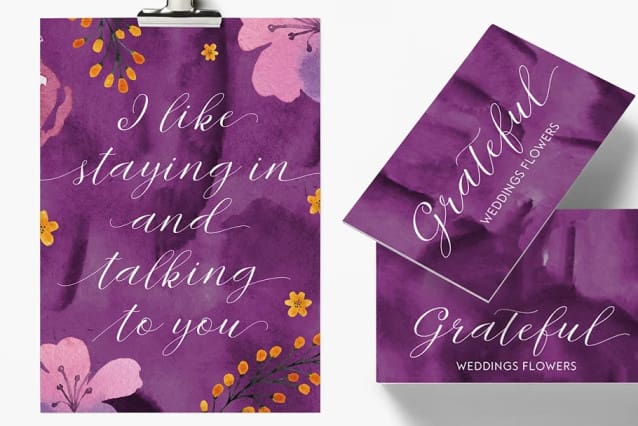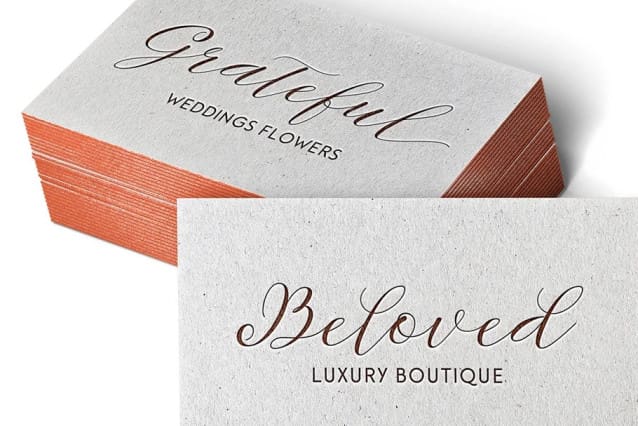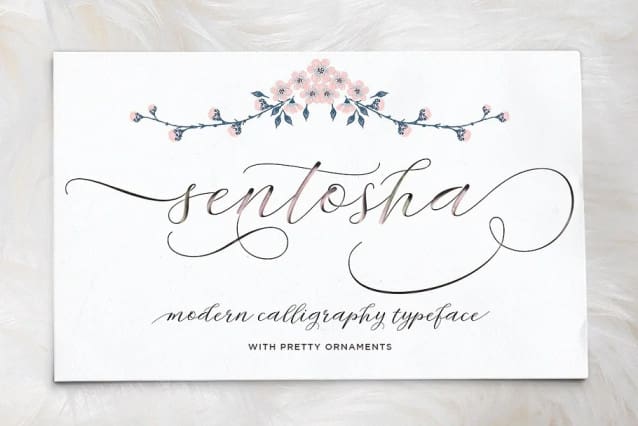
Sentosha Font
Sentosha Font is a modern calligraphy typeface, casual and pretty with swashes + ornaments. Can be used for many purposes. such as title, signature, logo, wedding invitations, letterhead, signage, labels, newsletters, posters, badges, etc. Sentosha Script features Open type, including the initial and terminal letters, alternates, ligatures and International support for most Western languages ​​included.